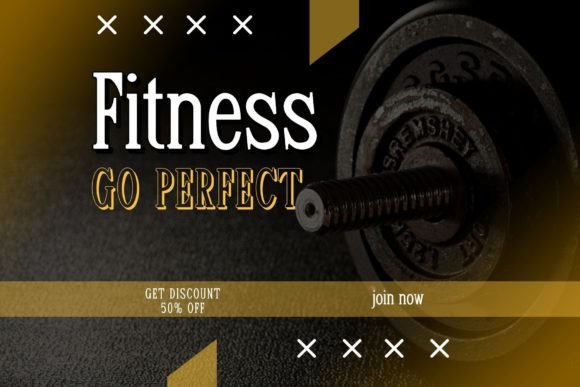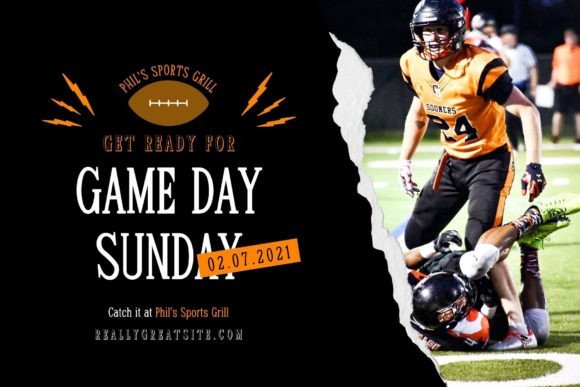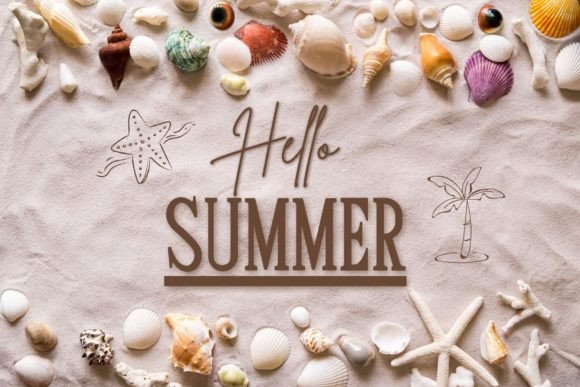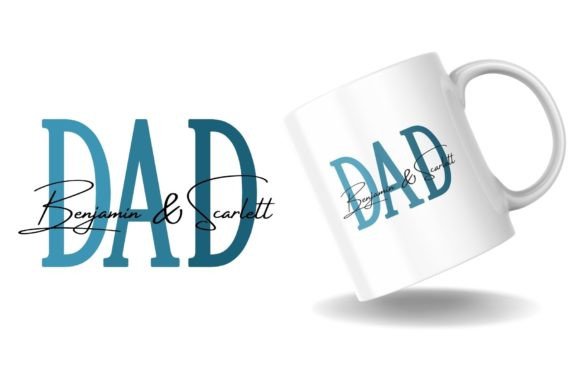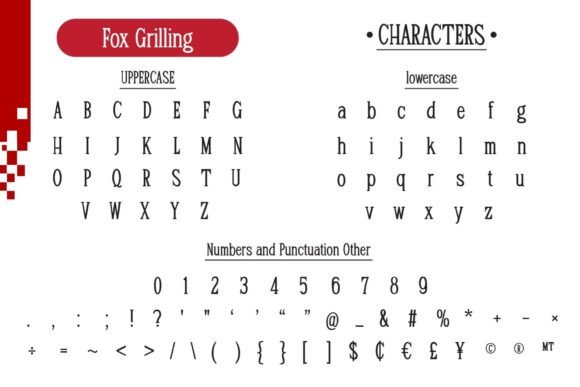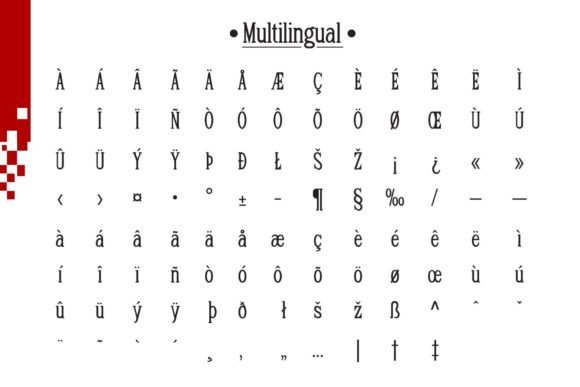
The Ultimate Font for Creative Projects: Fox Grilling
Have you ever been stuck on a design project, scouring the internet for the perfect font? I know I have. It was a typical Wednesday evening when I received a last-minute request from a client to create a logo for their new food truck business. The catch? They needed it by the end of the day. Panic mode activated. I began my search for a font that would make their brand stand out. That’s when I stumbled upon Fox Grilling, a modern slab serif font that would change the game.
My First Impressions
As soon as I opened Fox Grilling, I knew I had found something special. The font offers both regular and shadow variations, which immediately caught my attention. I was excited to see how it would work on various projects, from publications and menus to logos and business cards. The font’s versatility is truly impressive, making it perfect for a wide range of applications.
- ✨ Modern and sleek design: Fox Grilling’s clean lines and slab serif style make it perfect for modern brands.
- ✅ Variety of styles: The font comes in both regular and shadow variations, giving you flexibility in your designs.
- 💡 Ease of use: The font is easy to read and works well in both digital and print formats.
- 🎨 Creative freedom: Fox Grilling’s unique style allows you to experiment with different design concepts.
While Fox Grilling is an excellent font, there are a few minor things to keep in mind:
- 🤔 Legibility at small sizes: Like many slab serif fonts, Fox Grilling can become a bit tricky to read at very small sizes.
- ⚠️ Overuse of shadows: While the shadow variation is stunning, overusing it can make your design look cluttered.
Fox Grilling was designed with the modern brand in mind. The designer, inspired by the urban landscape and the world of food trucks, aimed to create a font that was both bold and approachable. The result is a font that’s perfect for businesses that want to stand out from the crowd.
Q: What type of projects is Fox Grilling best suited for?
A: Fox Grilling is versatile and can be used for a wide range of projects, including logos, business cards, menus, and more.